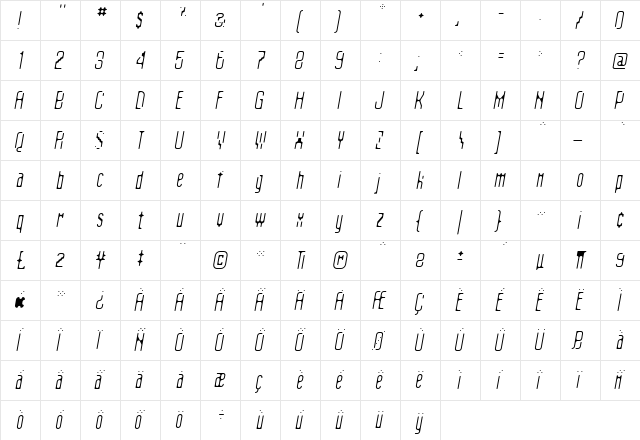
Matica SubnormalOblique Font Preview
Matica SubnormalOblique
Matica SubnormalOblique Font Details
Design Context for Matica Typeface
Matica is a composed and adaptable typeface that performs quietly and consistently across a wide range of design contexts. The dynamic lean of this cut emphasises speed and emphasis in any layout.